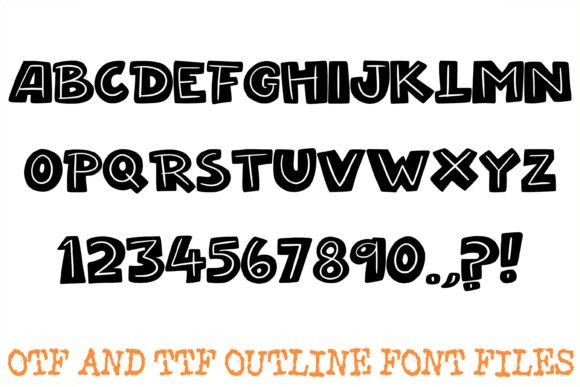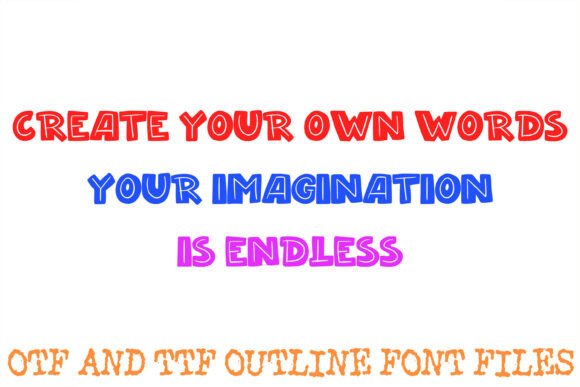
Unleash Your Inner Hero: Discover the Power of Action Hero Font
Are you a designer, crafty enthusiast, or simply a fan of superhero-themed designs? Look no further! The Action Hero Font is here to revolutionize your creative projects with its bold, high-impact display typeface. Inspired by the golden age of comic books and classic animation, this font is the perfect tool to add a touch of heroism to your designs.
The Birth of a Hero: Design and Features
The Action Hero Font boasts heavy, solid block letterforms accented with a distinct internal highlight line, creating an instant 3D “pop” effect. This striking design element is what sets it apart from other fonts and makes it a premier choice for designers working on superhero-themed branding, high-energy event posters, gaming graphics, and custom apparel.
Crafted with a focus on power and visibility, Action Hero balances a weighty silhouette with a clean, modern edge. This harmonious blend of strength and sophistication ensures that your message is delivered with maximum impact, making it perfect for designs that require a bold statement.
Endless Possibilities: Use Cases for Action Hero Font
The versatility of Action Hero Font is one of its most significant advantages. Whether you are designing a standout logo for a gaming channel, creating bold, punchy headers for a streetwear brand, or crafting eye-catching posters for a comic book convention, this font is the perfect choice.
- Superhero-Themed Branding: Create logos, business cards, and marketing materials that capture the essence of your favorite superheroes.
- High-Energy Event Posters: Design posters for concerts, comic-cons, and other events that demand attention.
- Gaming Graphics: Elevate your gaming channel or video game designs with bold, high-impact typography.
- Custom Apparel: Design t-shirts, hoodies, and other apparel that makes a statement.
What Makes Action Hero Font Stand Out?
In a sea of fonts, Action Hero Font stands out for several reasons:
- Unique 3D Effect: The internal highlight line creates a striking 3D effect that adds depth to your designs.
- Clean and Modern Edge: The font’s clean lines and modern aesthetic ensure it looks fresh and contemporary.
- High-Impact Display: The bold, solid block letterforms make it perfect for display purposes.
Tips and Tricks for Using Action Hero Font
To get the most out of Action Hero Font, consider the following tips:
- Experiment with Colors: Try pairing the font with bright, bold colors to amplify its impact.
- Play with Size: Use the font in various sizes to create visual hierarchy and emphasis.
- Mix and Match: Combine Action Hero Font with other fonts to create unique and interesting typography.
In conclusion, the Action Hero Font is a powerful tool for designers, crafty enthusiasts, and anyone looking to add a touch of heroism to their creative projects. Its bold, high-impact display typeface, unique 3D effect, and clean, modern edge make it the perfect choice for a wide range of applications. So why wait? Unleash your inner hero and discover the power of Action Hero Font today!